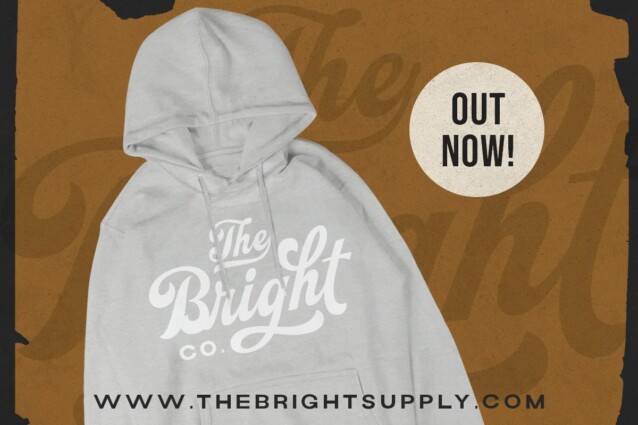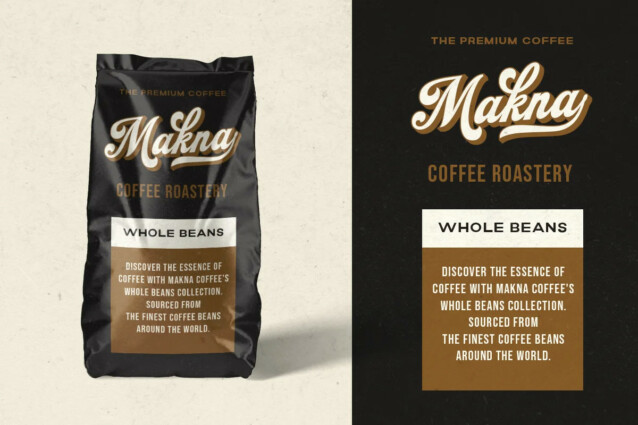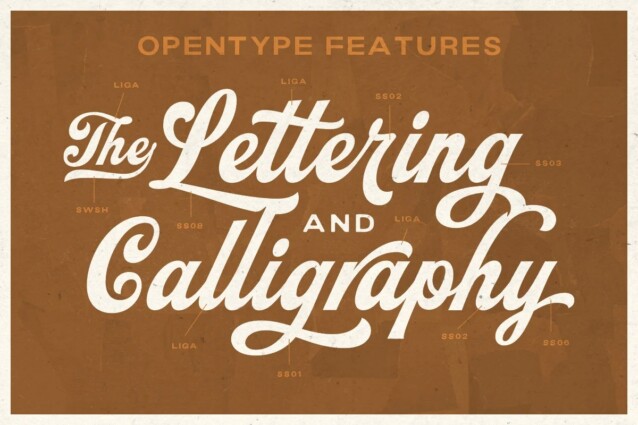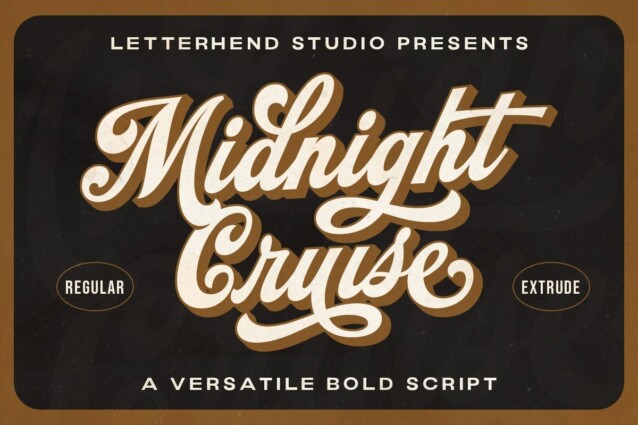
Midnight Cruise Font
Midnight Cruise Font is a retro script typeface crafted & designed by Letterhend Studio. Inspired by retro typography and lettering from the 70s and 80s combined with a bold typographic style. This type of font perfectly made to be applied especially in logo, headline, signage and the other various formal forms such as invitations, labels, logos, magazines, books, greeting / wedding cards, packaging, fashion, make up, stationery, novels, labels or any type of advertising purpose.